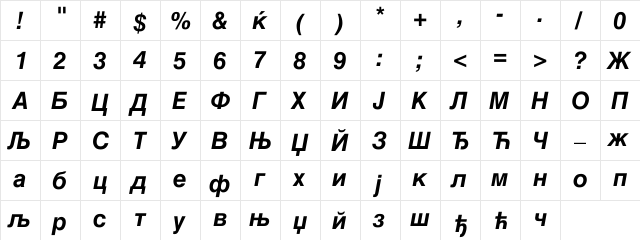
CSwiss Bold-Ita Regular
Design Context for CSwiss Bold-Ita Typeface
CSwiss Bold-Ita takes a measured approach to typography — its balanced proportions and neutral character make it a reliable workhorse for both digital and print work. The slanted form adds forward momentum and visual energy. Its bold stroke weight gives it real presence on the page.
Pro Tip: Use CSwiss Bold-Ita for emphasis, pull quotes, and subheadings where its slanted energy can add rhythm to the layout.